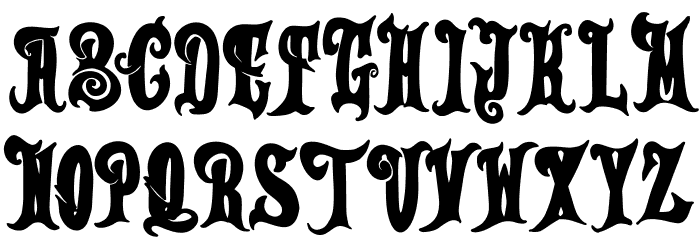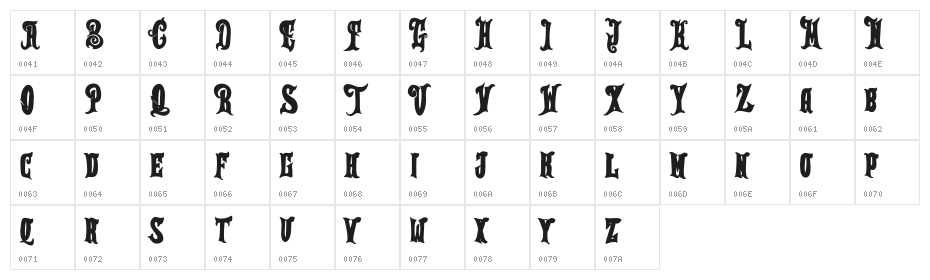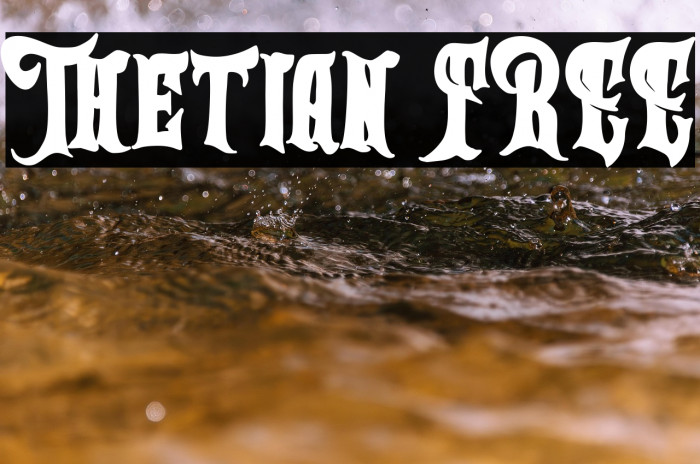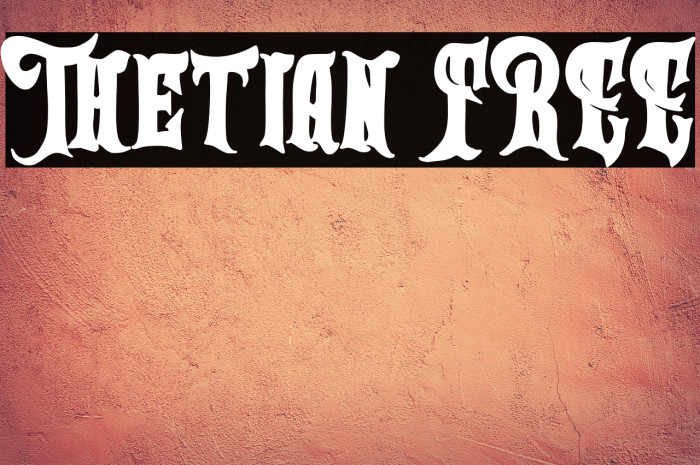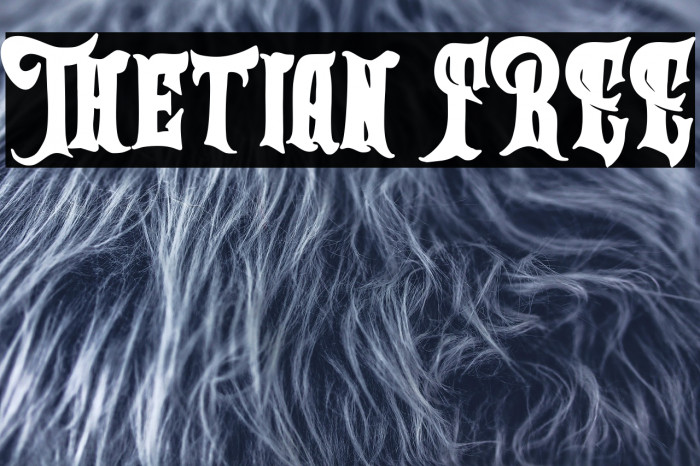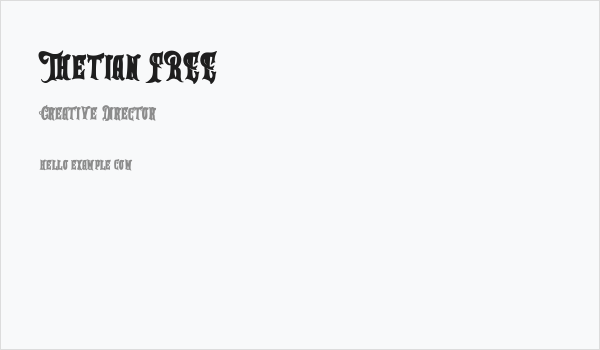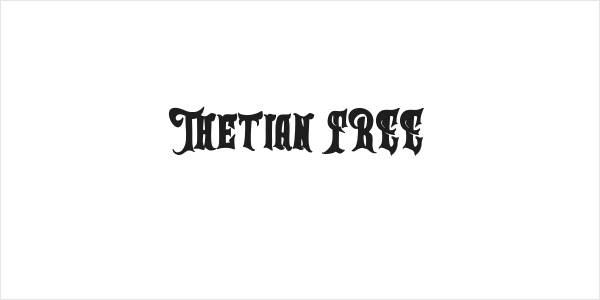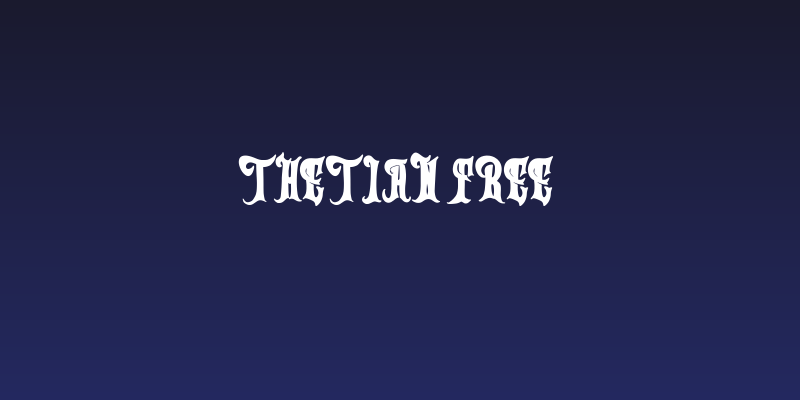
Thetian FREE Font
Thetian FREE Description
This font features a bold and decorative style with intricate details and flourishes. The uppercase letters are highly stylized, with exaggerated curves and unique embellishments that give it a distinct, ornate appearance. The overall design is reminiscent of vintage or gothic styles, making it stand out with its dramatic flair. The characters are tightly spaced, enhancing the boldness and impact of the text. This font is suitable for projects that require a strong visual presence and a touch of elegance and sophistication.
| Overall Style | Vintage, Gothic, Decorative |
| Proposed Projects | Ideal for use in branding, posters, album covers, and any design requiring a dramatic and ornate touch. |